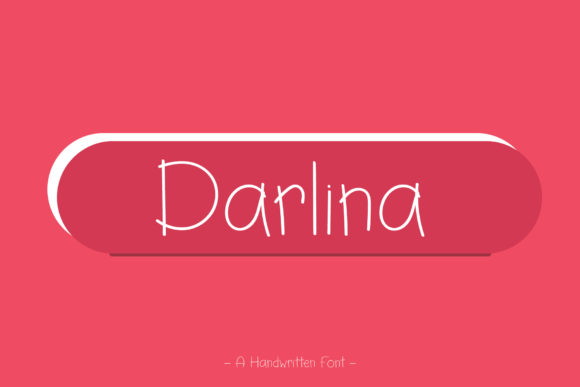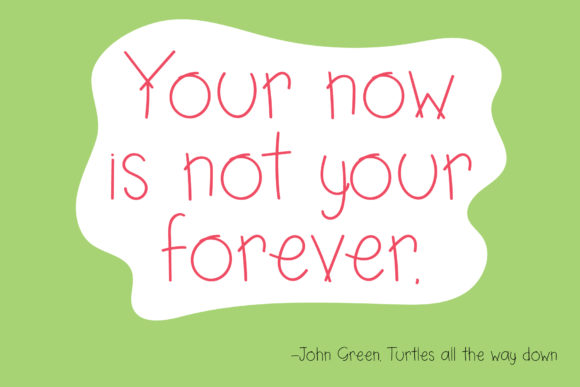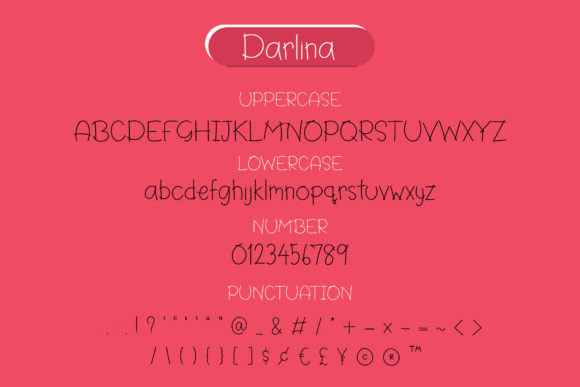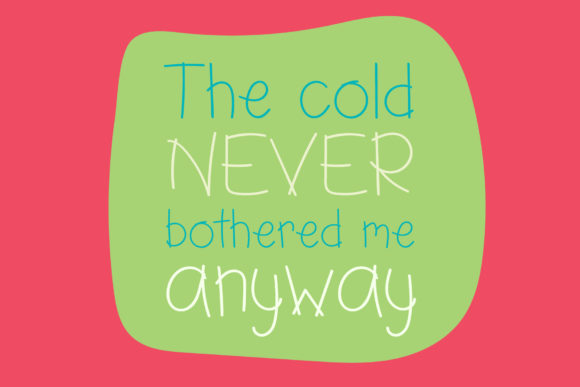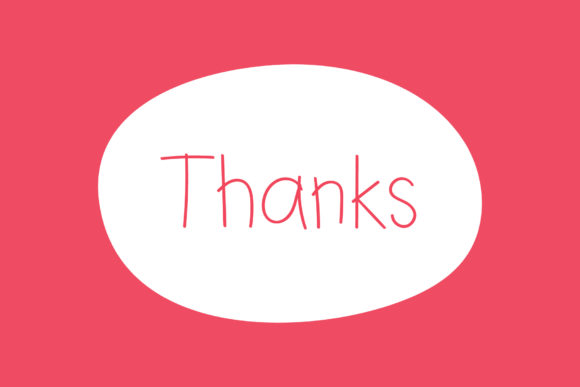
Darlina Font
About Darlina Font
Darlina is a delicate, neat lettered handwritten font. Whether you’re looking for fonts for Instagram or calligraphy scripts for DIY projects, Darlina will turn any creative idea into a true piece of art!